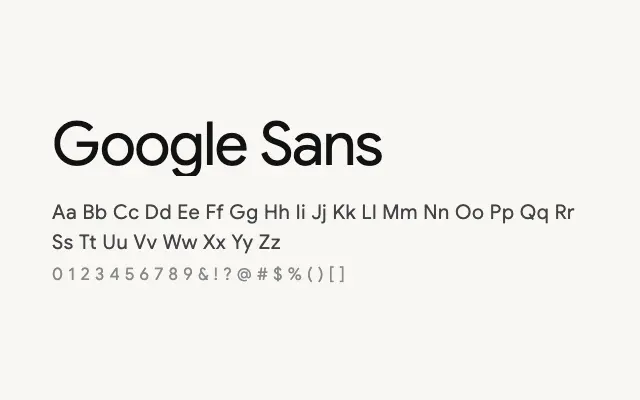
Google Sans
Google's own geometric sans-serif, engineered for legibility across diverse scripts and optimised for product and interface use at all sizes.
Google Sans is a system typeface built to function across Google's product ecosystem, with thoughtful support for Armenian, Bengali, and Canadian Aboriginal syllabics alongside Latin. Its clean geometric construction and neutral character ensure it does not impose personality on functional interfaces, instead prioritising clarity and consistency. While strong in UI contexts, its system origins mean it carries limited expressive range for editorial or branding work.
A clean geometric sans-serif with softened terminals and a highly legible construction optimised for screen and product interfaces. The design reflects Google's Material Design system with precise, neutral letterforms and broad multilingual script support including Armenian and Bengali.